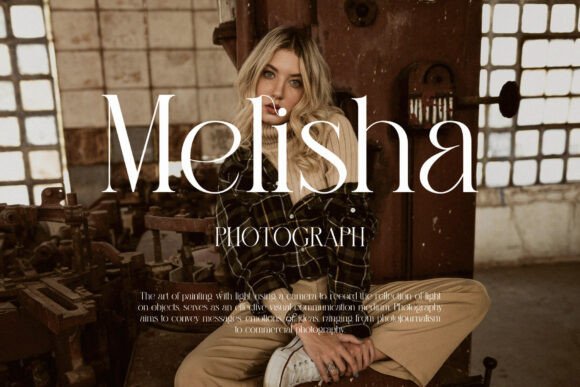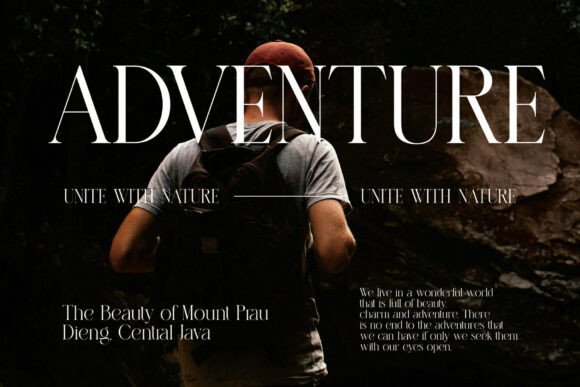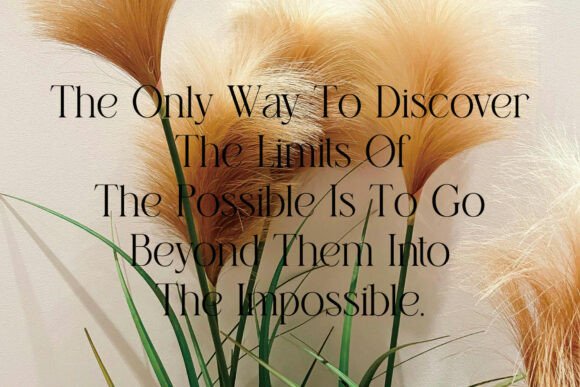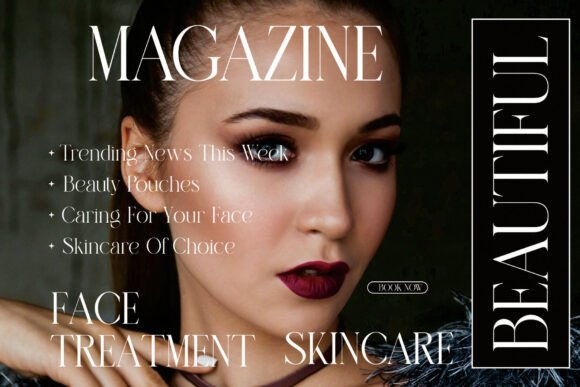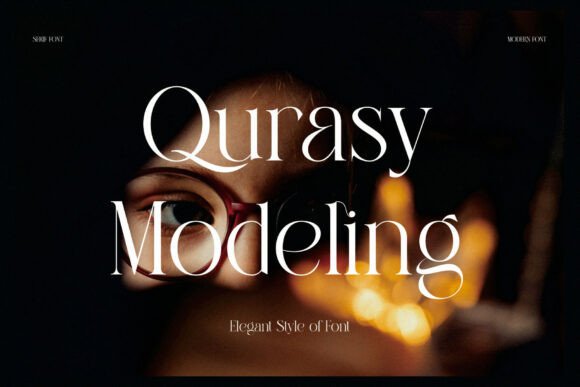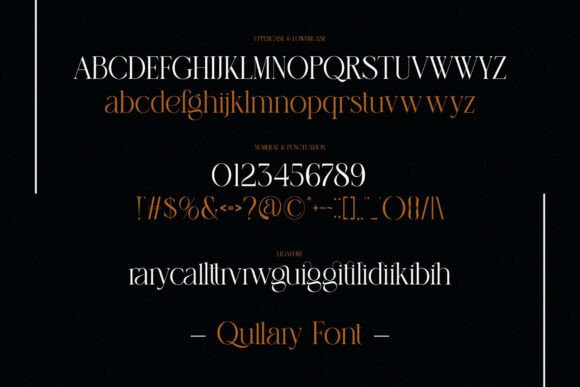
Introduction to Qullary Font
Introducing Qullary Serif Font — a typeface that blends timeless elegance with a subtle modern touch.
Designed for those who want to stand out with sophistication, without losing warmth and personality Qullary features balanced proportions, refined serif details, and a smooth typographic rhythm that ensures readability across various media.
Key Features of Qullary Font
Why Choose Qullary Font?
Qullary Font offers exceptional quality and versatility, making it a valuable addition to your design toolkit. Whether you’re creating for personal projects or commercial use, Qullary Font delivers professional results.